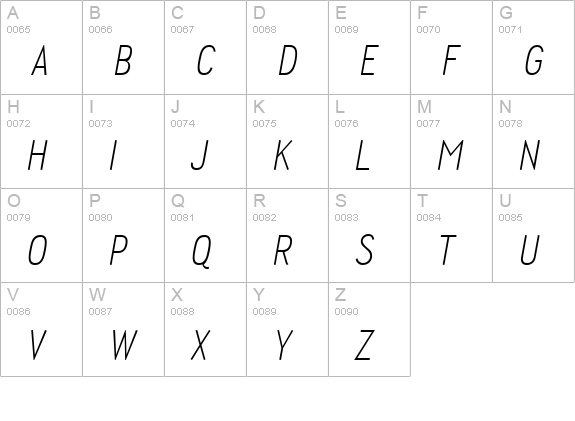
Wyvern Lt Italic is a distinctive, italic variant in the Wyvern typeface family \xE2\x80\x94 well suited to design and typography projects.
Wyvern Lt Italic is a modern and stylish font that exudes elegance and sophistication. With its sleek lines and subtle curves, this font is perfect for adding a touch of class to any design project. The italicized style adds a sense of dynamism and flair, making it ideal for headings, quotes, and other attention-grabbing text. What sets Wyvern Lt Italic apart is that it is not only visually appealing but also easily accessible to everyone. This font is available for free download at FontsMarket.com, allowing designers, creatives, and enthusiasts to use it in their projects without any restrictions. Whether you're working on a personal or commercial project, Wyvern Lt Italic is a versatile font that will elevate your work to the next level. Add a touch of sophistication to your designs with Wyvern Lt Italic today!